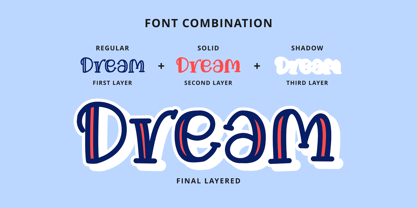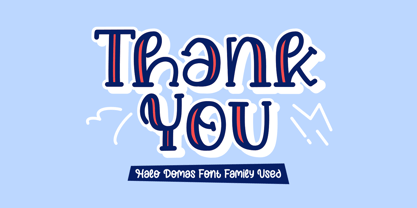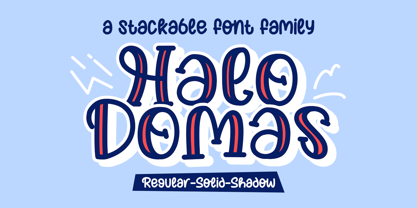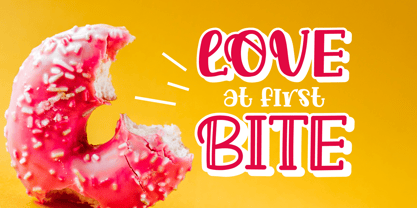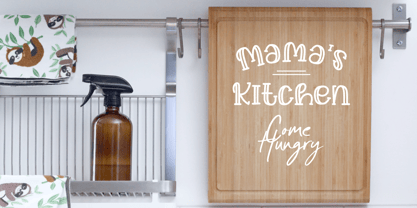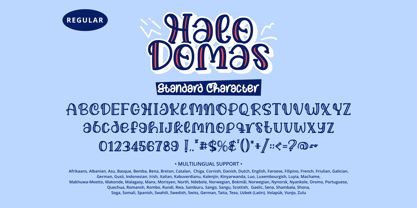
Halo Domas Solid
by Mabhal Studio
The Halo Domas Solid Font Family was designed by Abdullah Mabhal and published by Mabhal Studio. Halo Domas Solid contains 3 styles and family package options. More about this family
Halo Domas is a playful and fun stackable font family designed for creative layering. It features three distinct styles—Regular, Solid, and Shadow—that can be combined to create vibrant, multi-colored text effects. Its bubbly and friendly character makes it ideal for children's apparel, food branding, stickers, greeting cards, and nursery decor. Includes uppercase, lowercase, numerals, and extensive multilingual support for a wide range of global design projects.
Designers: Abdullah Mabhal
Foundry: Mabhal Studio